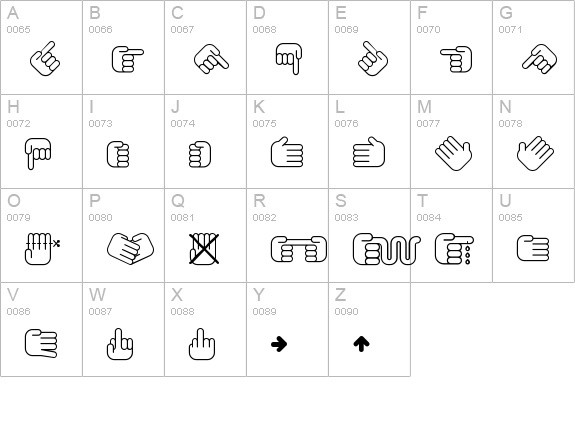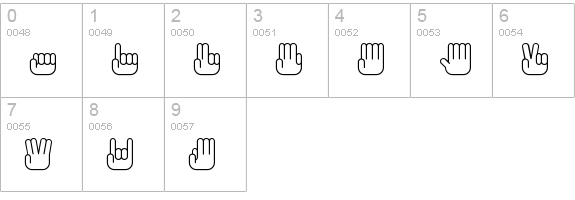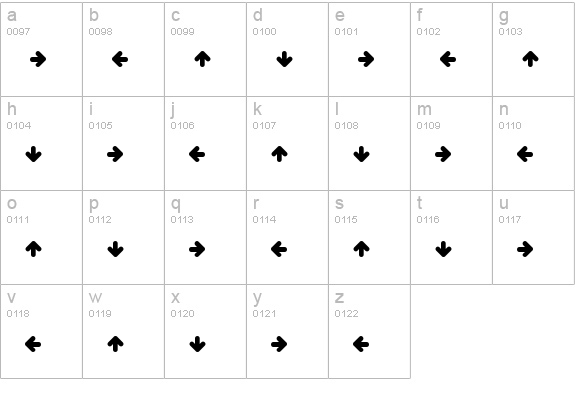
All My Hands Font Details
All My Hands font is a beautiful and versatile typeface that exudes elegance and sophistication. With its delicate curves and stylish design, this font is perfect for a wide range of projects, from invitations to branding materials. The unique hand-drawn look of All My Hands adds a touch of personality and charm to any design. What makes All My Hands font even more appealing is that it is completely free to download at FontsMarket.com. This means that you can easily access this stunning font and use it in your projects without any cost. Whether you're a designer looking to add a special touch to your work or a business owner in need of a distinctive font for your branding, All My Hands is the perfect choice. Download it today and elevate your designs with this exquisite typeface.